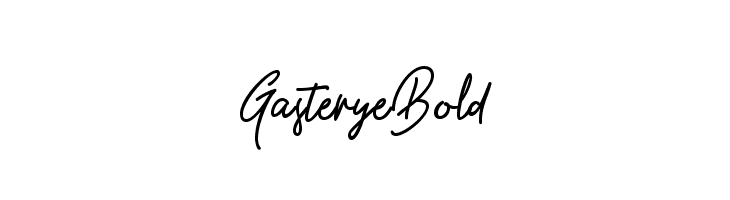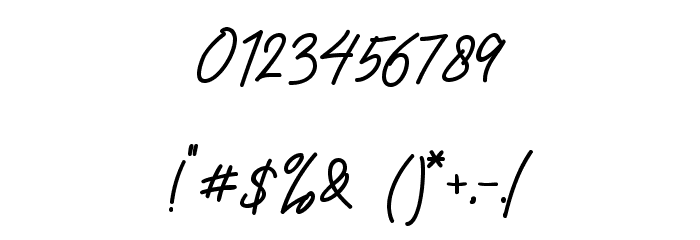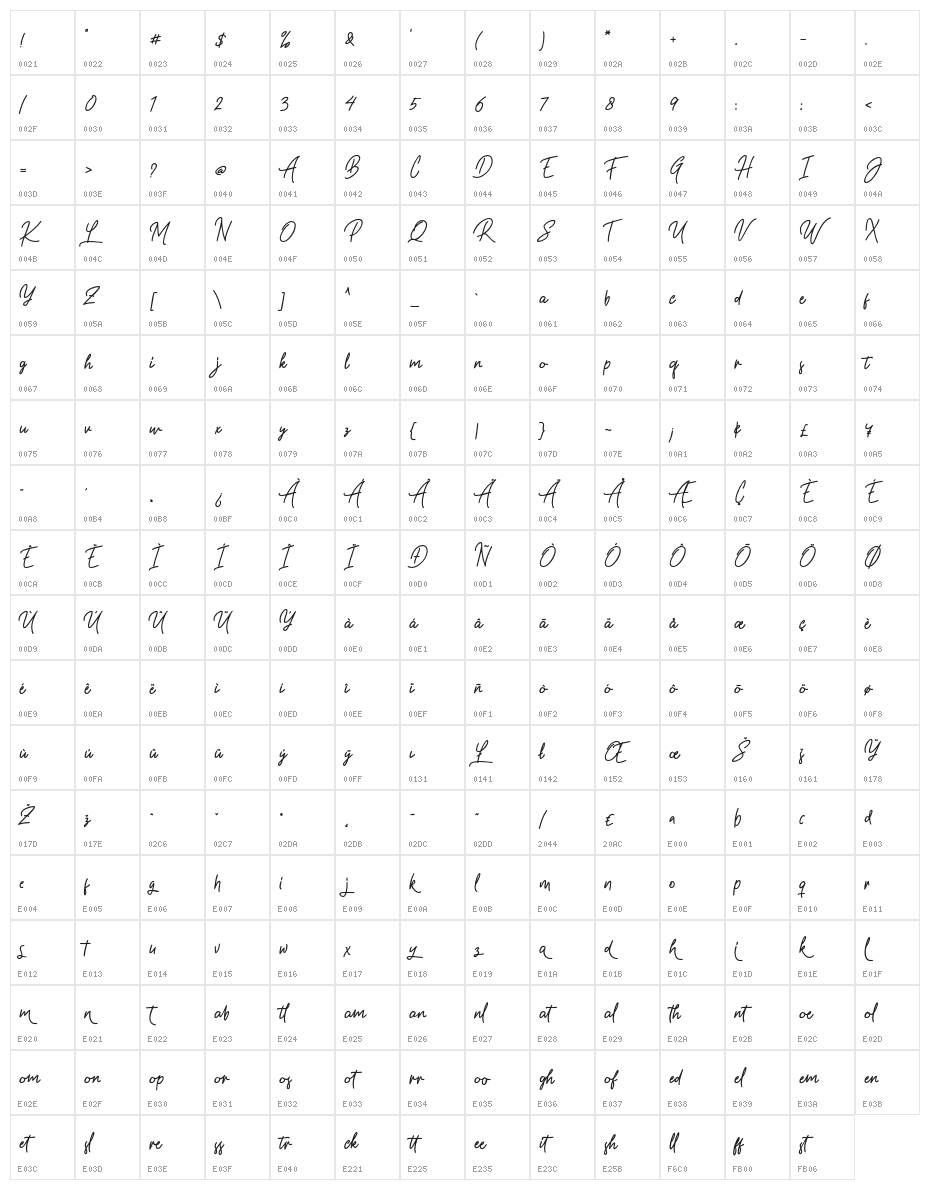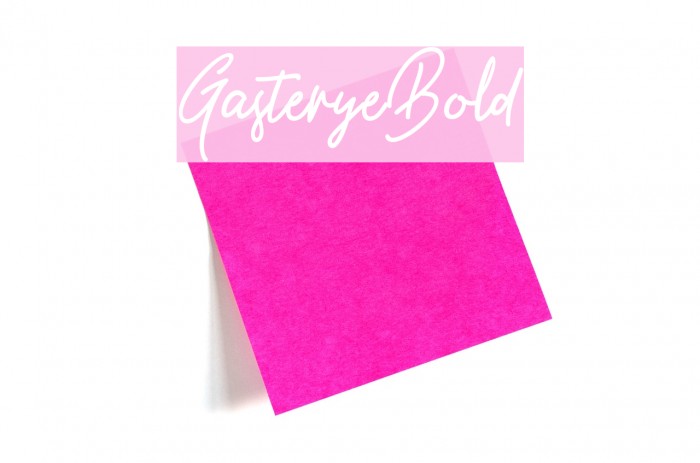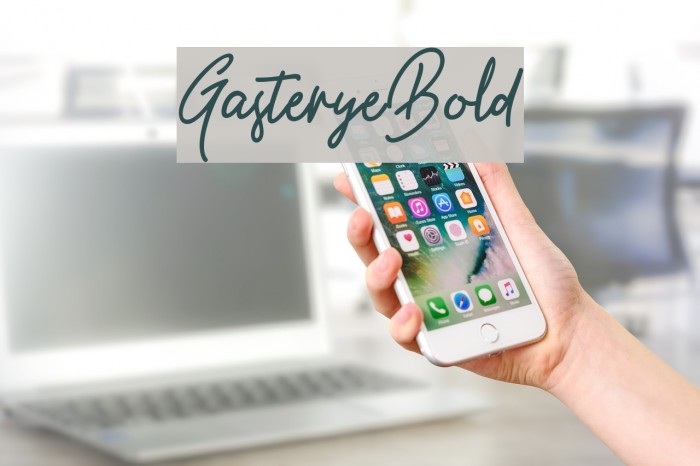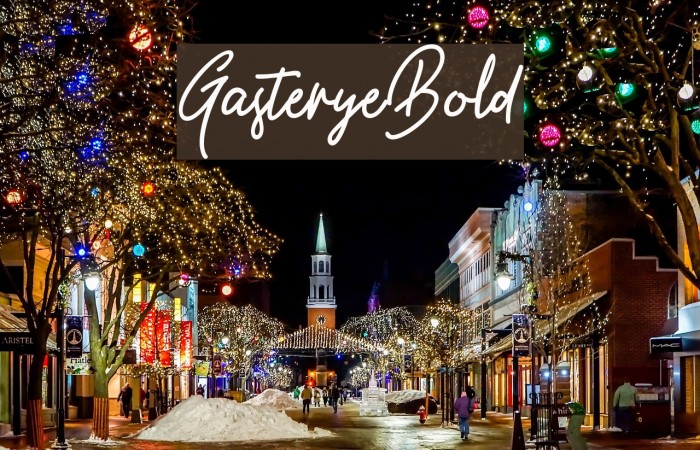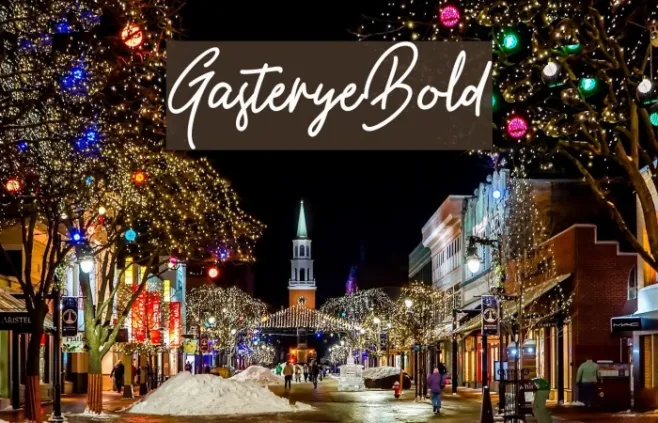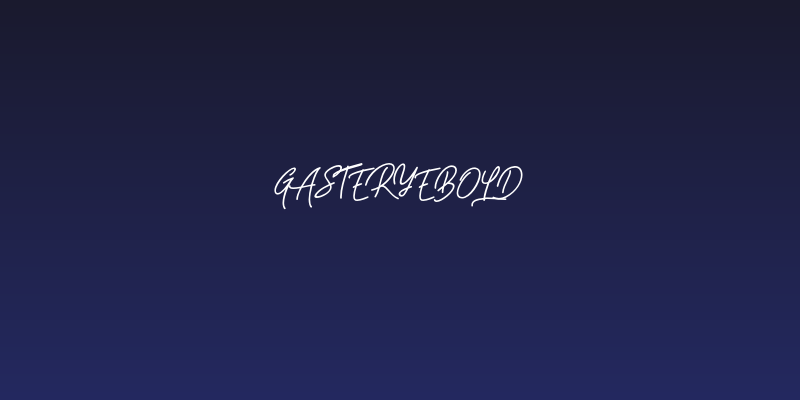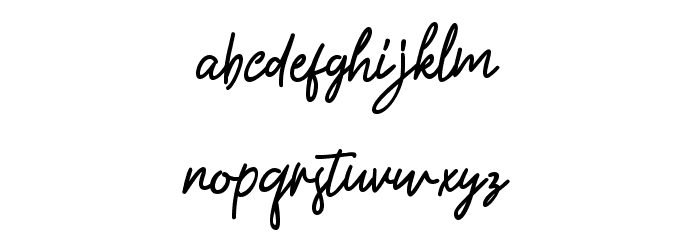
GasteryeBold Font
GasteryeBold Description
This font features a dynamic and flowing script style, characterized by its elegant and fluid strokes. The uppercase letters are bold and slightly slanted, giving a sense of movement and grace. The lowercase letters maintain a consistent flow, with smooth connections between characters, enhancing its cursive appeal. Numbers and special characters are designed to complement the overall script style, maintaining the same fluidity and elegance. This font is ideal for projects that require a personal touch, such as invitations, greeting cards, or branding materials that aim to convey sophistication and creativity.
| Proposed Projects | Ideal for wedding invitations, greeting cards, branding, and creative projects. |